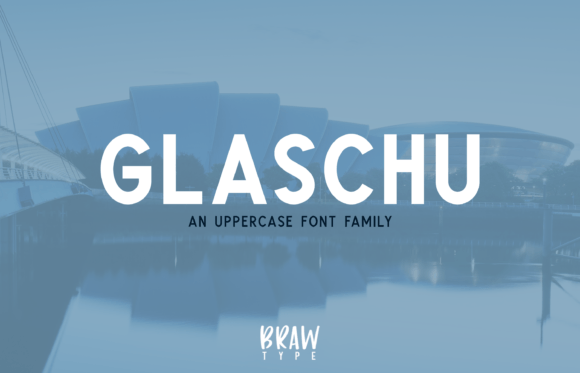
Introducing Glaschu Font: The Epitome of Modernity and Sophistication
Unleash the power of Glaschu Font, a stunning sans serif typeface that exudes elegance and innovation. Crafted by brawtype, this font family captivates with its clean, crisp edges and bold presence, making it the ideal choice for those seeking a modern edge in their designs.
With five distinct font weights and two remarkable outline styles, Glaschu Font offers an unparalleled level of versatility, adapting seamlessly to a multitude of creative projects. Its impeccable design ensures that every letterform commands attention, whether gracing headings, branding, signage, advertising, or magazine layouts.
Ascend to new heights of creativity with Glaschu Font, the perfect companion for designers seeking to make a lasting impression. Its sharp lines and confident strokes evoke a sense of sophistication, leaving an indelible mark on your audience.
Embark on a design journey like no other with Glaschu Font. Its modern aesthetic will elevate your projects to new levels of excellence, ensuring that your message captivates and resonates with your target audience.